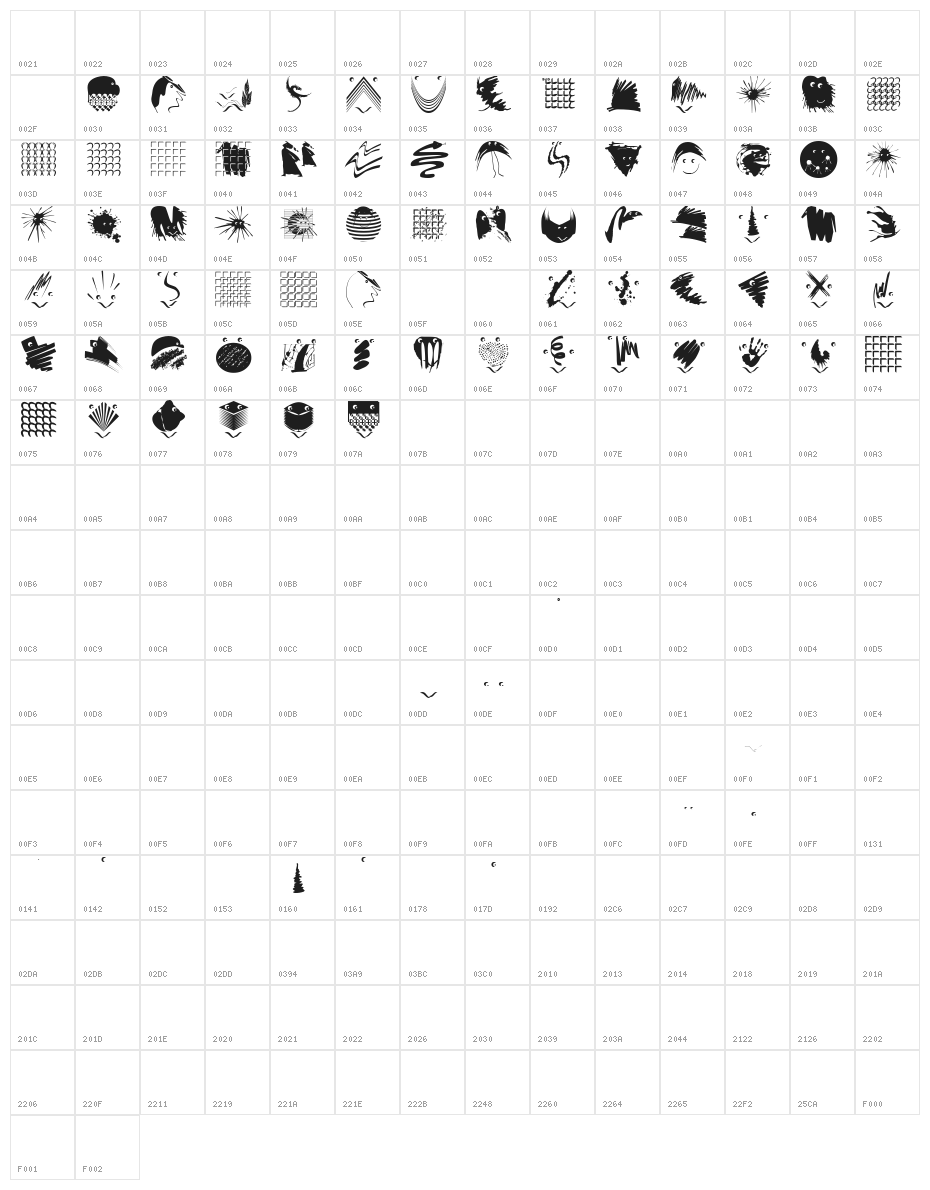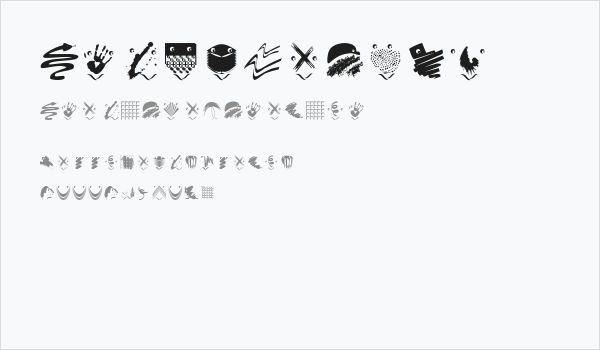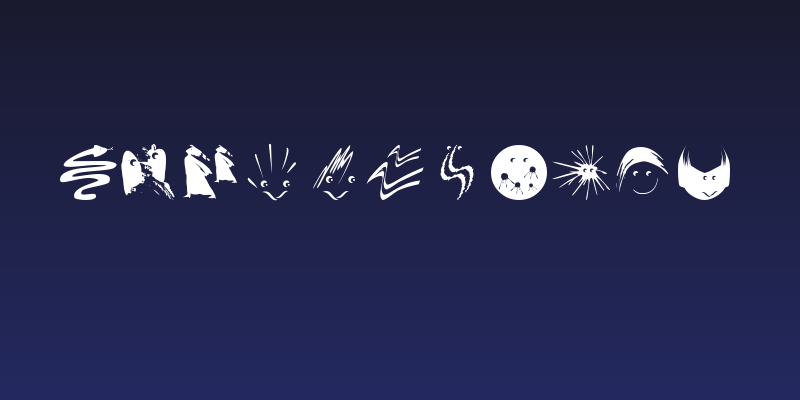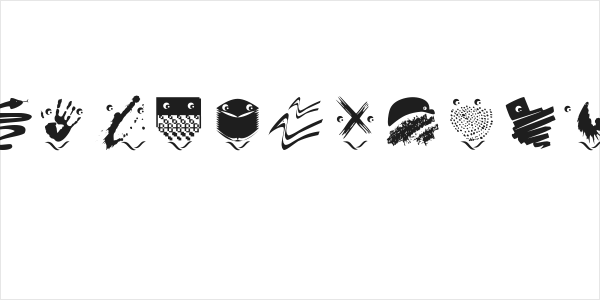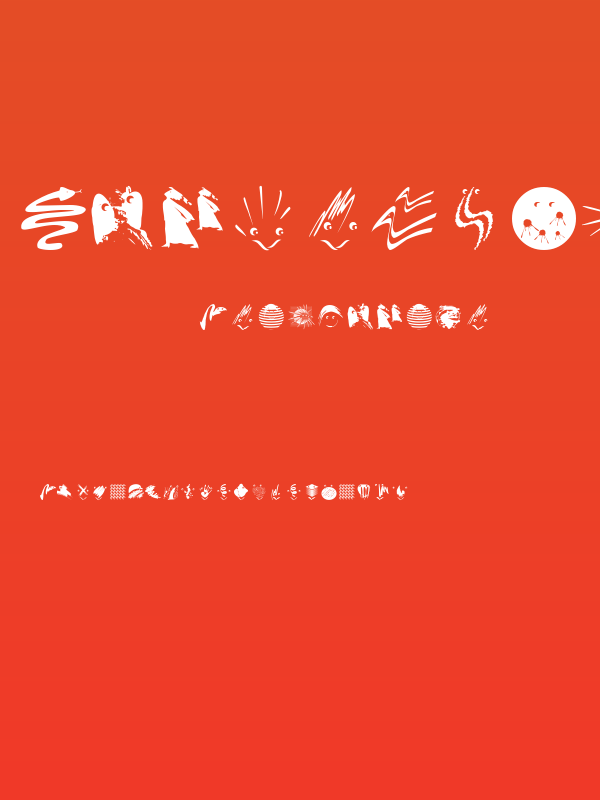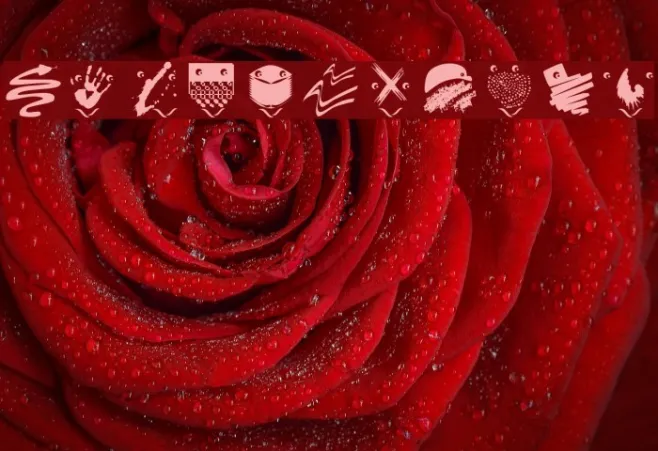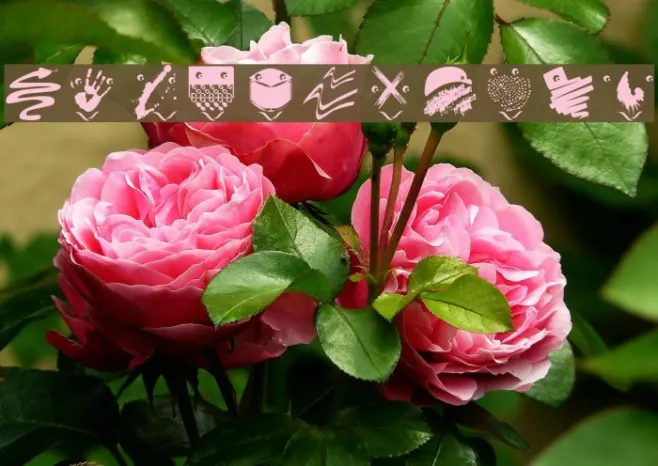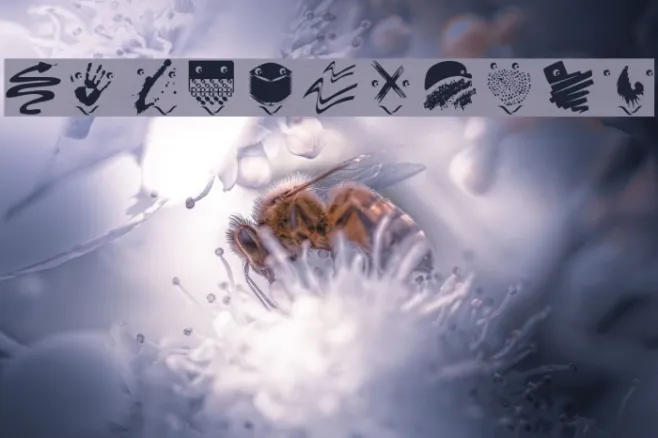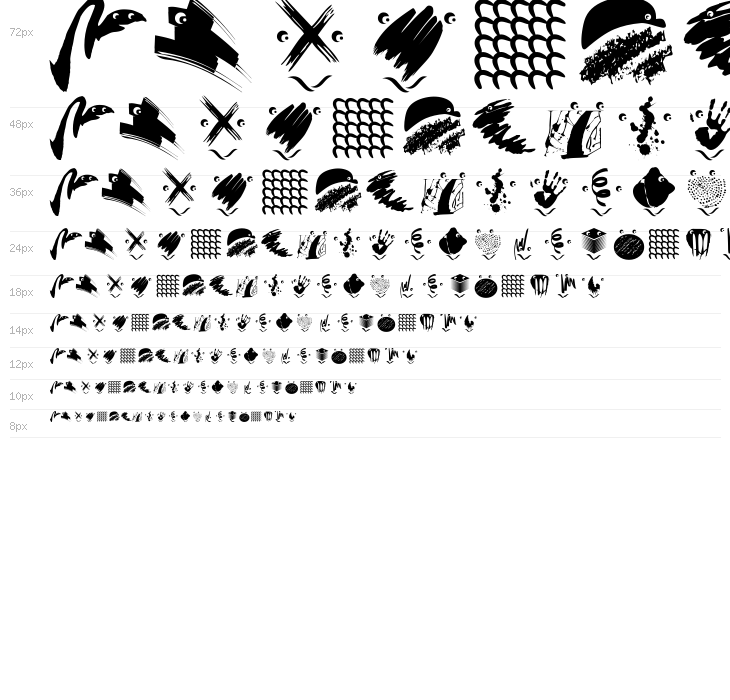
CrazyBeings Font
CrazyBeings Description
Highly abstract and playful collection of glyphs, each character rendered as a unique, expressive doodle or creature with whimsical shapes and facial features, lacking traditional letterforms.
| Overall Style | Decorative, Playful, Abstract |
| Use Case | Logos, Posters, Artistic headlines, Branding |
| Proposed Projects | Children’s books, creative posters, album covers, experimental art projects, branding for playful or avant-garde products. |